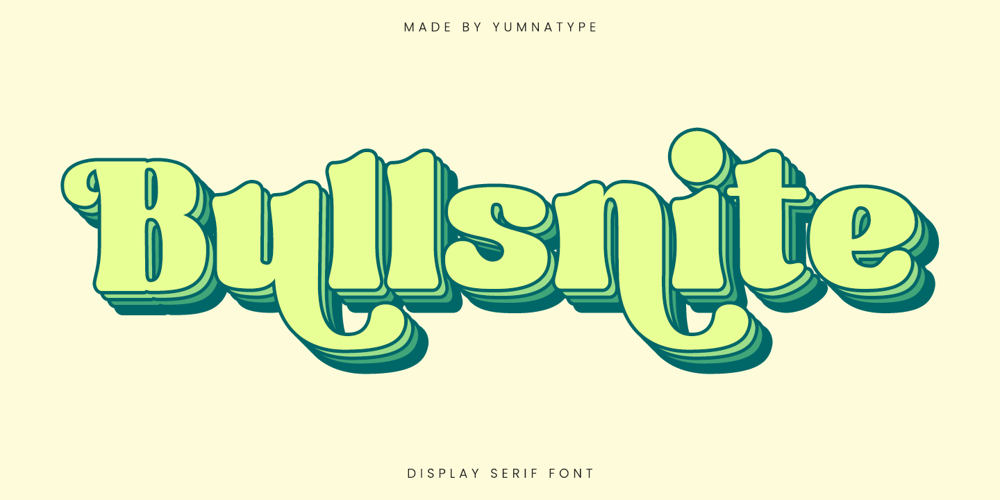
Bullsnite Font Family was designed by Donis Miftahudin and published by Yumna Type. Bullsnite contains 1 styles and family package options. Bullsnite is a dynamic display font that stands out with its thick weight. The font is made in noticeable contrast, adding depth and visual interest to each character. Bullsnite combines strength with a touch of softness. Its rounded forms and visible contrast make it an excellent choice for designs that require both boldness and approachability, ensuring your message is both powerful and engaging. In addition, enjoy the features here.Features: Alternates Multilingual Supports PUA Encoded Numerals and Punctuations Bullsnite fits in headlines, logos, posters, flyers, branding materials, print media, editorial layouts, and many more designs. Find out more ways to use this font by taking a look at the font preview.Thanks for purchasing our fonts. Hopefully, you have a great time using our font. Feel free to contact us anytime for further information or when you have trouble with the font. Thanks a lot and happy designing.